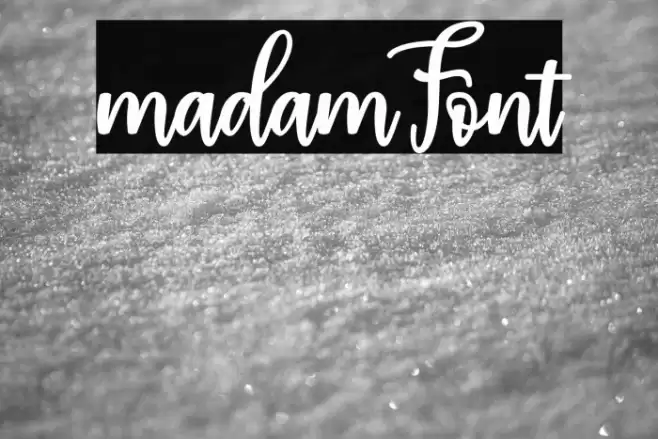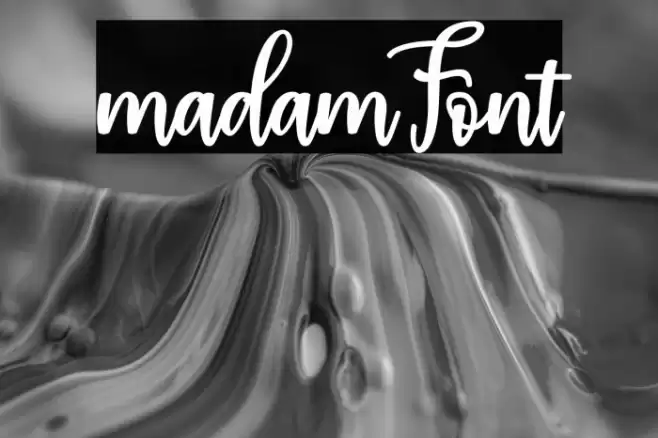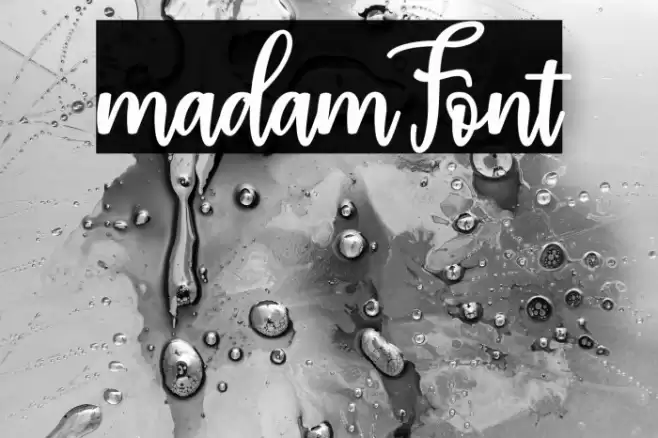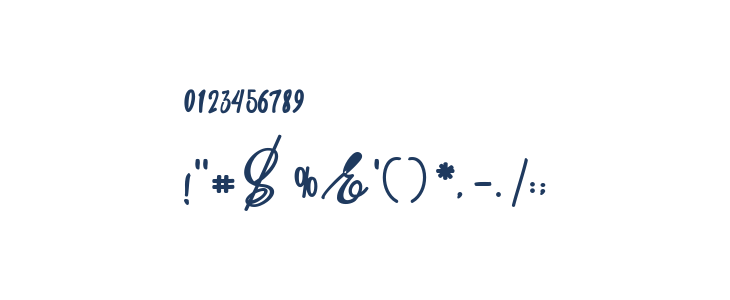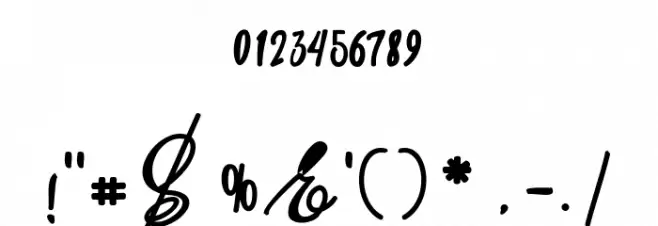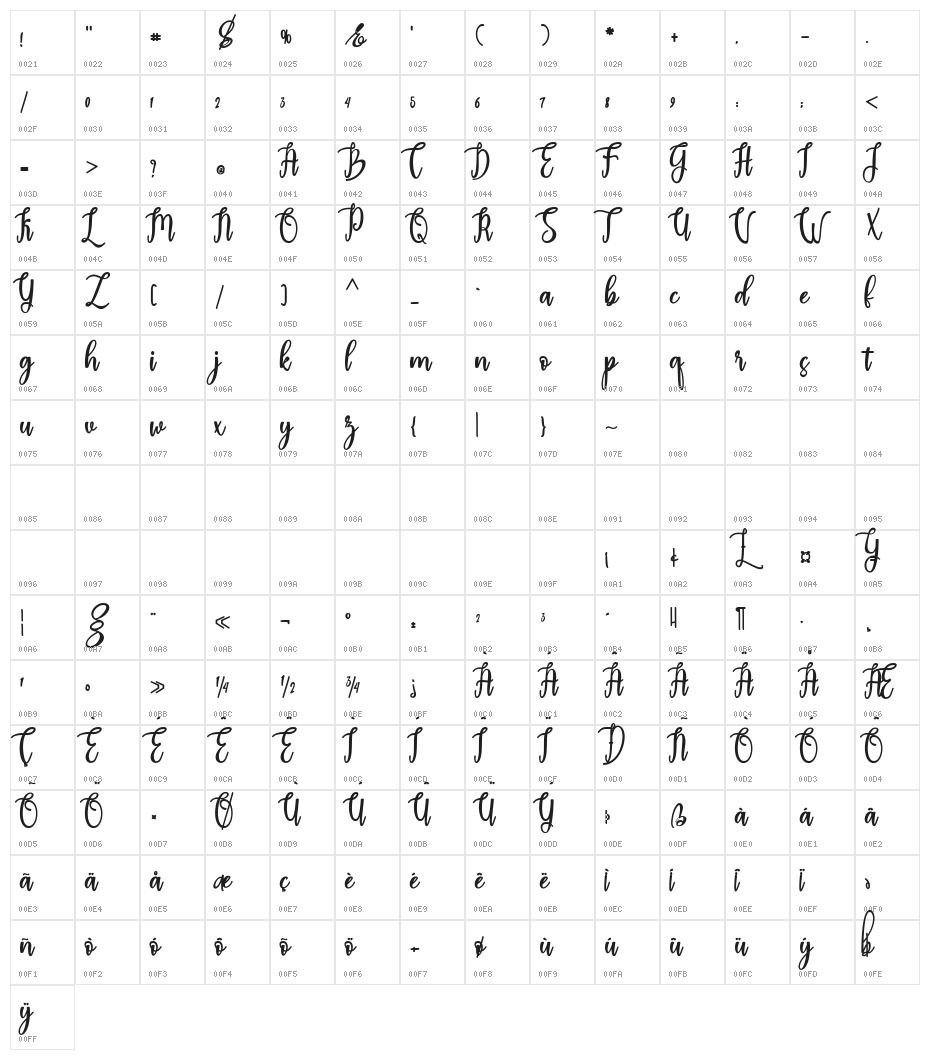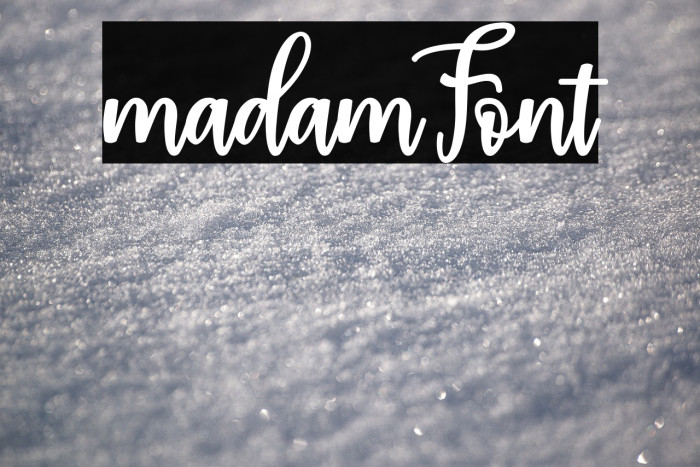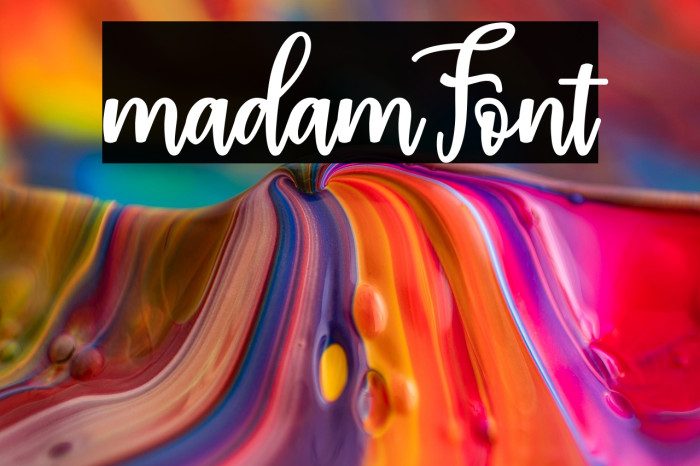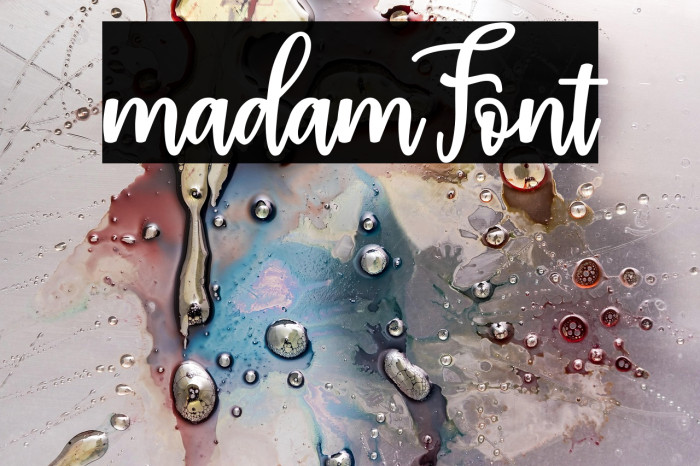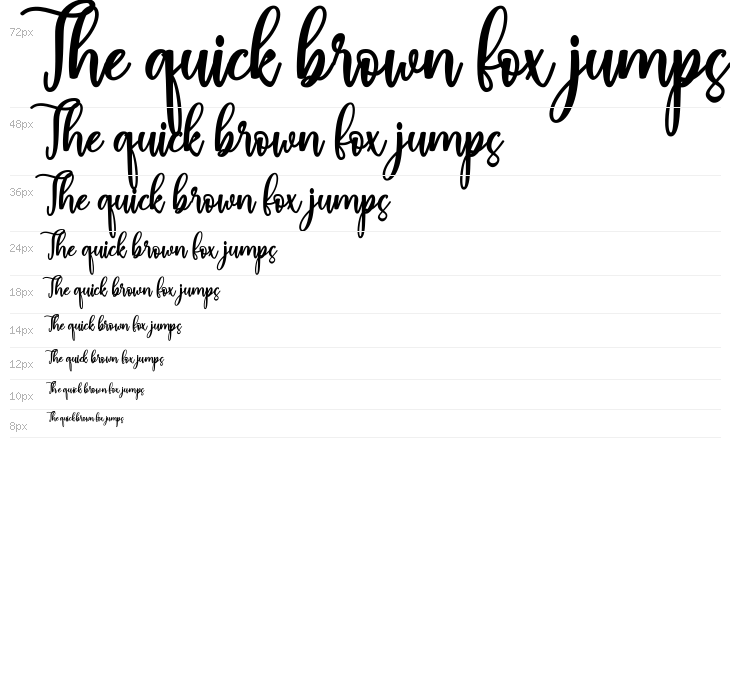
madam Font
madam Description
This font exhibits a lively and flowing script style, characterized by its elegant and cursive letterforms. The uppercase letters are bold and expressive, with intricate loops and swirls that add a touch of sophistication. The lowercase letters maintain a consistent flow, with smooth connections between characters, enhancing the overall fluidity. Numbers are clear and legible, while special characters retain the font's decorative flair. The font's playful yet refined appearance makes it suitable for creative and artistic projects.
A lively, flowing script font with elegant, cursive letterforms from Regular fonts.